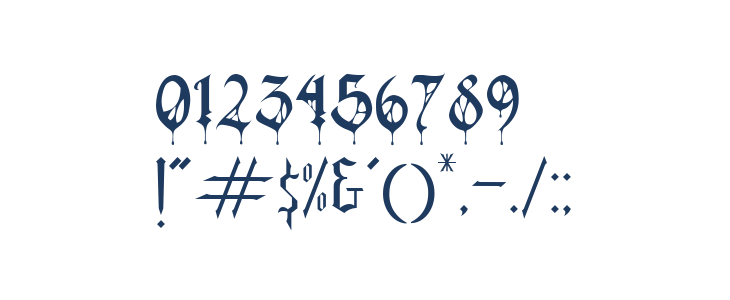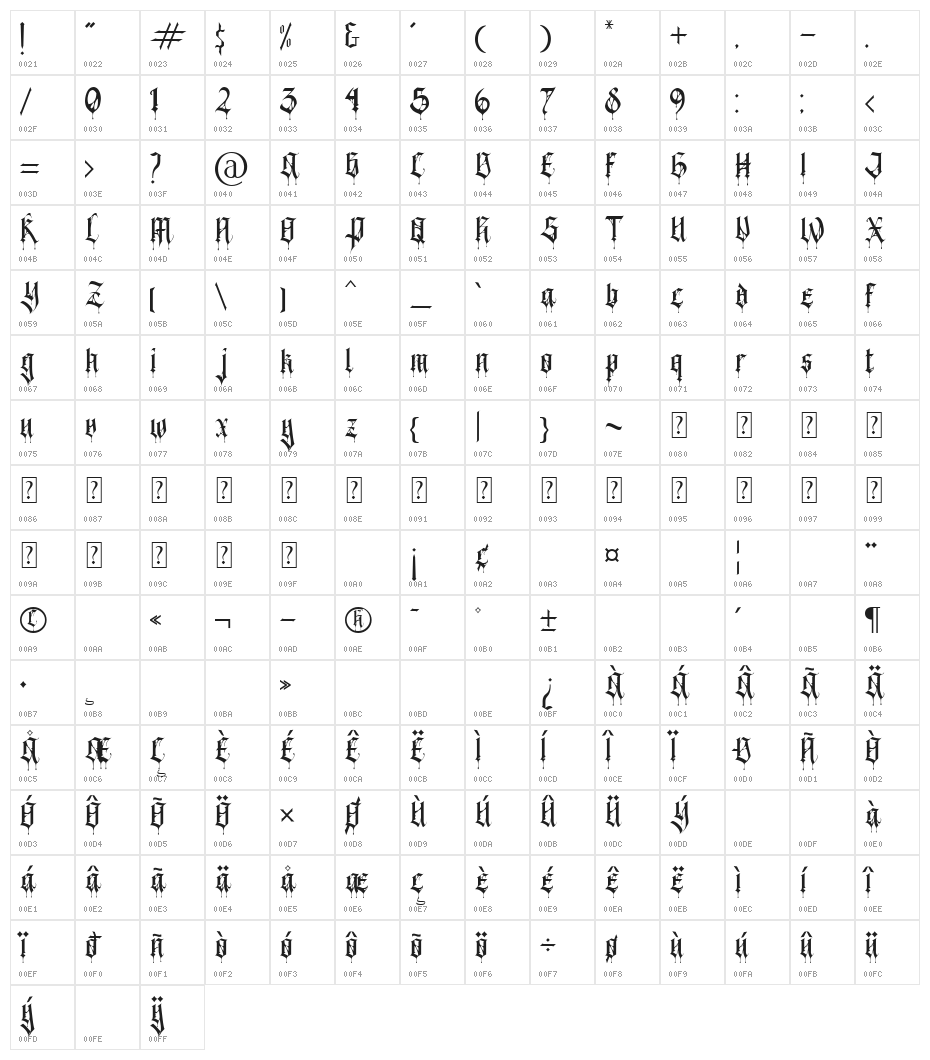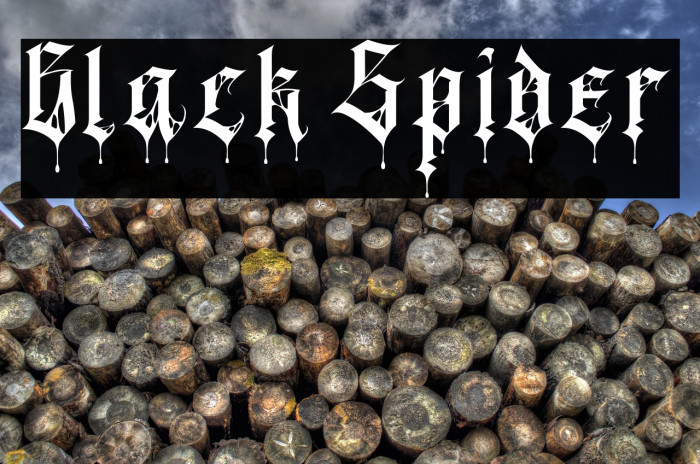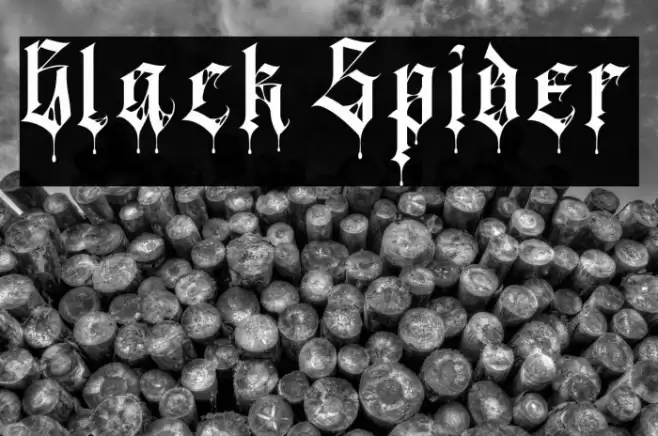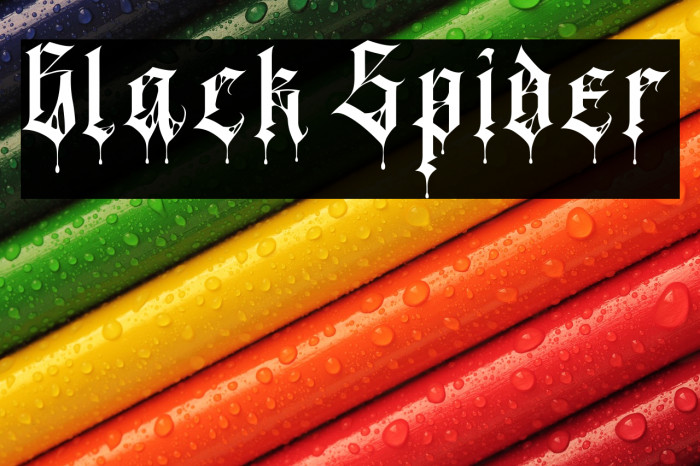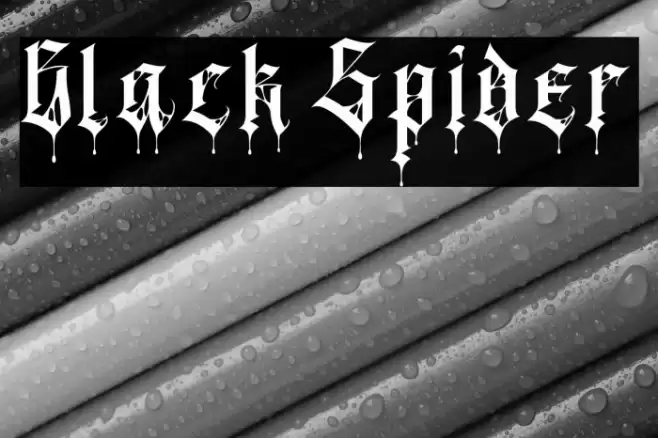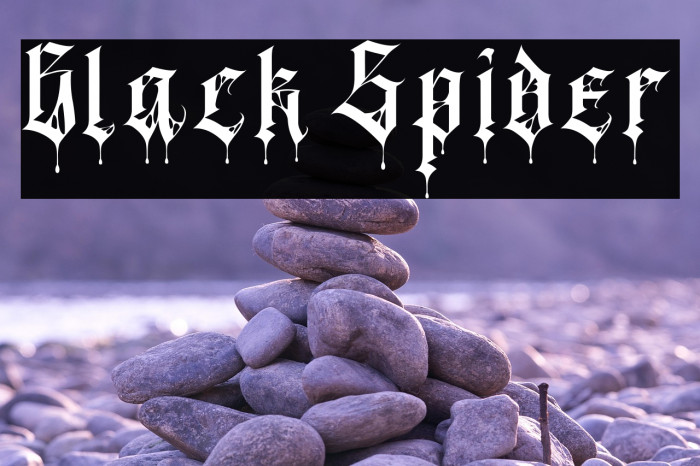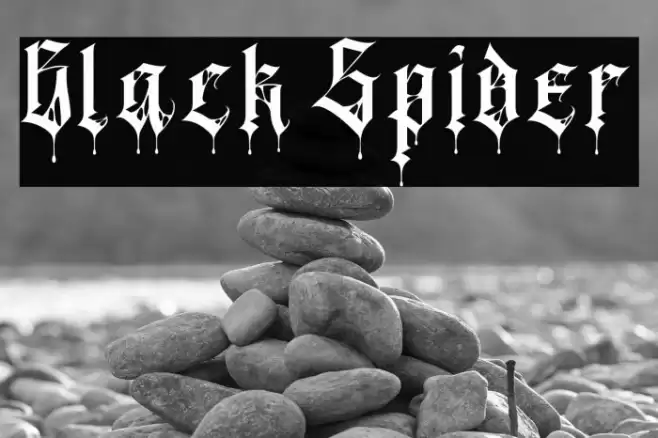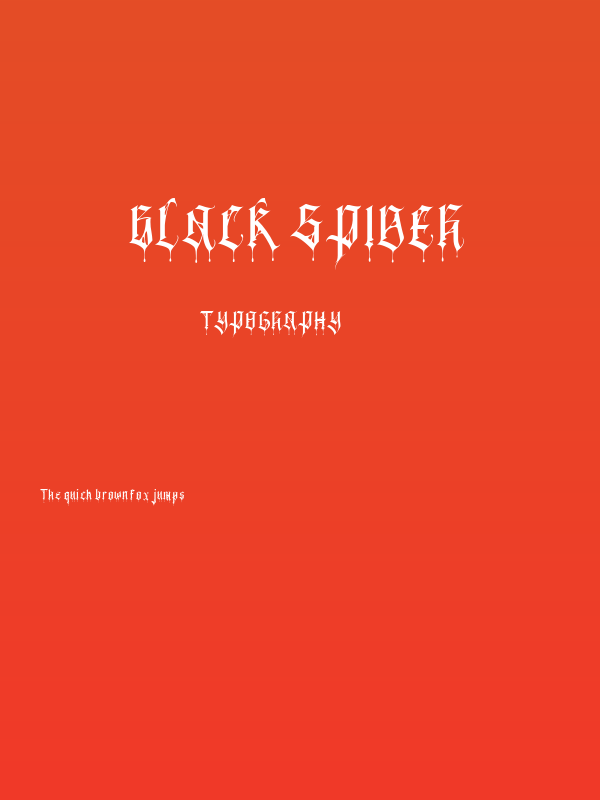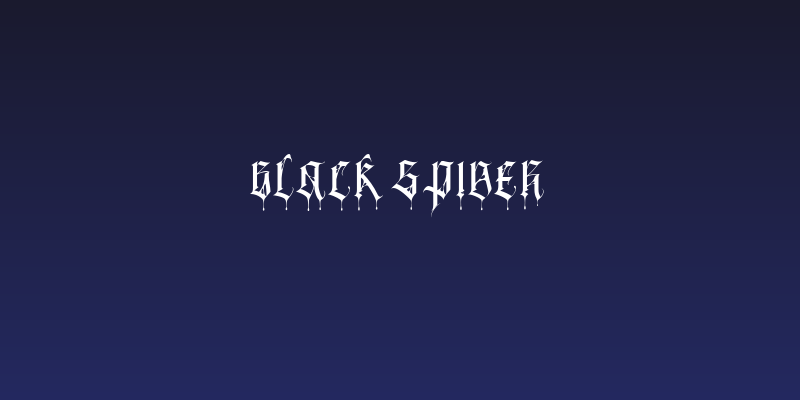
Black Spider Font
Black Spider Description
This font features a striking and intricate design reminiscent of Gothic or medieval calligraphy. The characters are adorned with sharp, pointed serifs and elaborate detailing that gives them a spider-like appearance. The uppercase and lowercase letters maintain a consistent style, with elongated vertical strokes and angular forms. The numerals and special characters are equally ornate, ensuring a cohesive look across all text elements. This font's dramatic flair and unique aesthetic make it stand out, ideal for projects that require a bold and distinctive typeface.
| Use Case | Logos, Posters, Themed Events |
| Proposed Projects | Ideal for horror-themed designs, Halloween invitations, gothic novels, or band logos. |